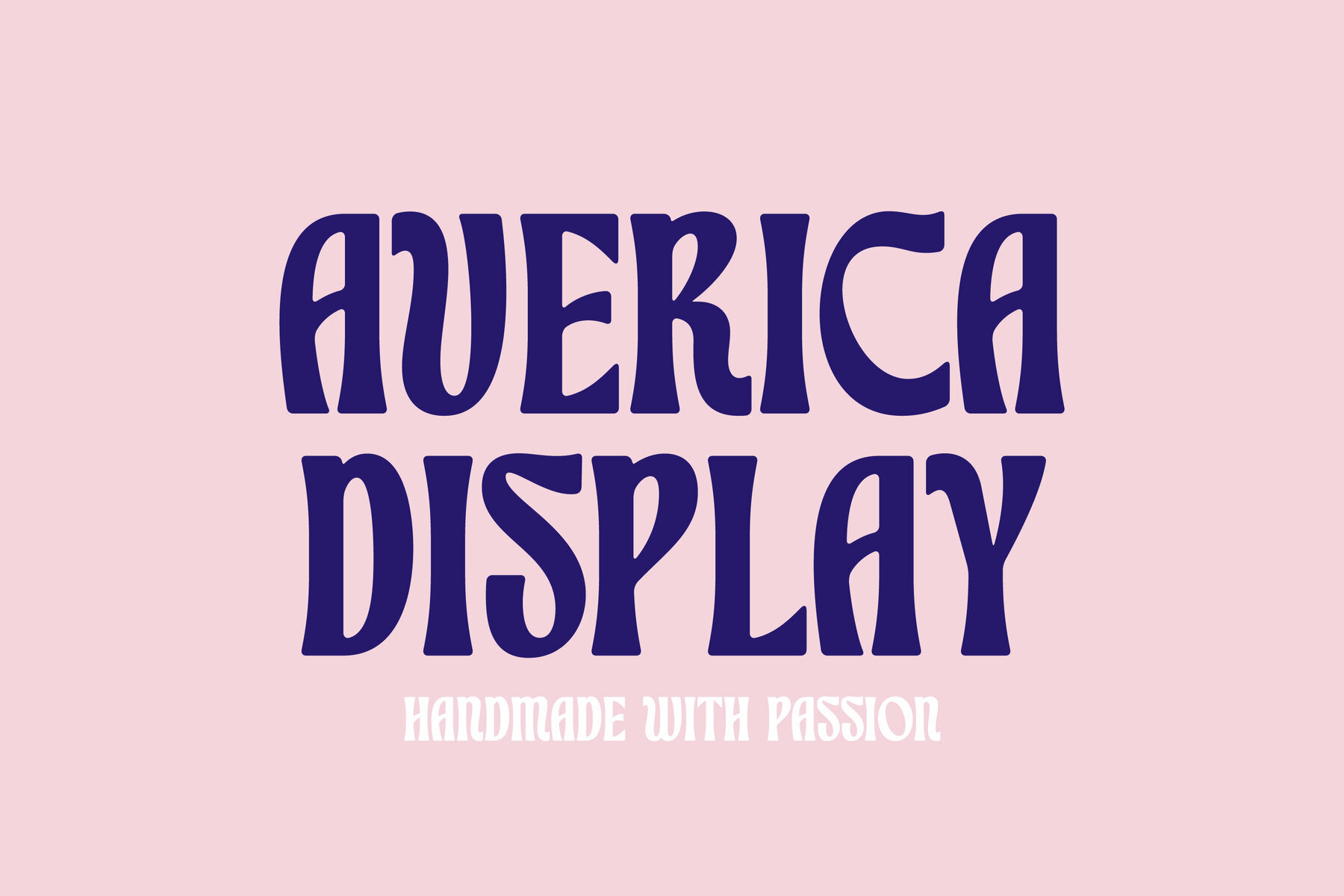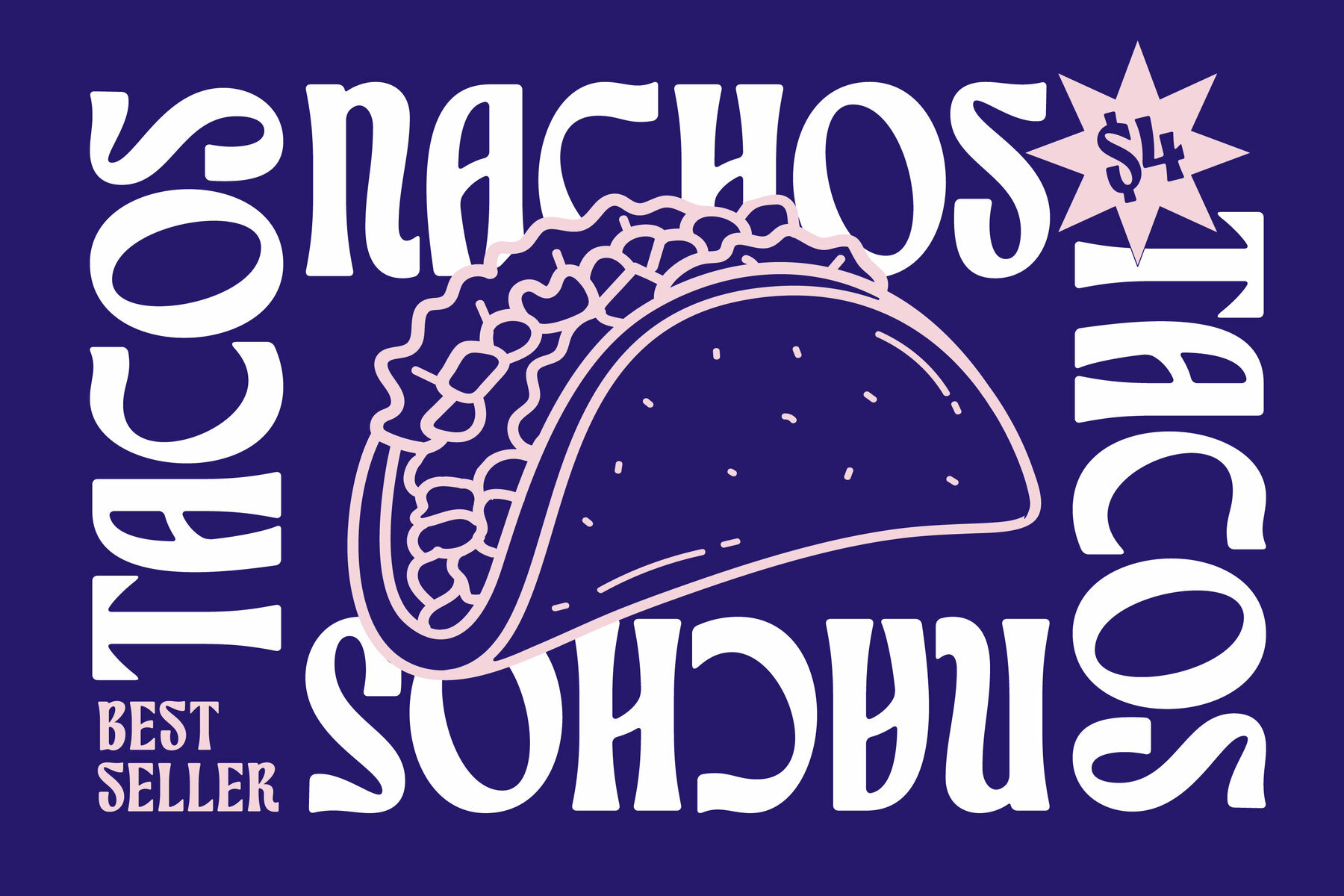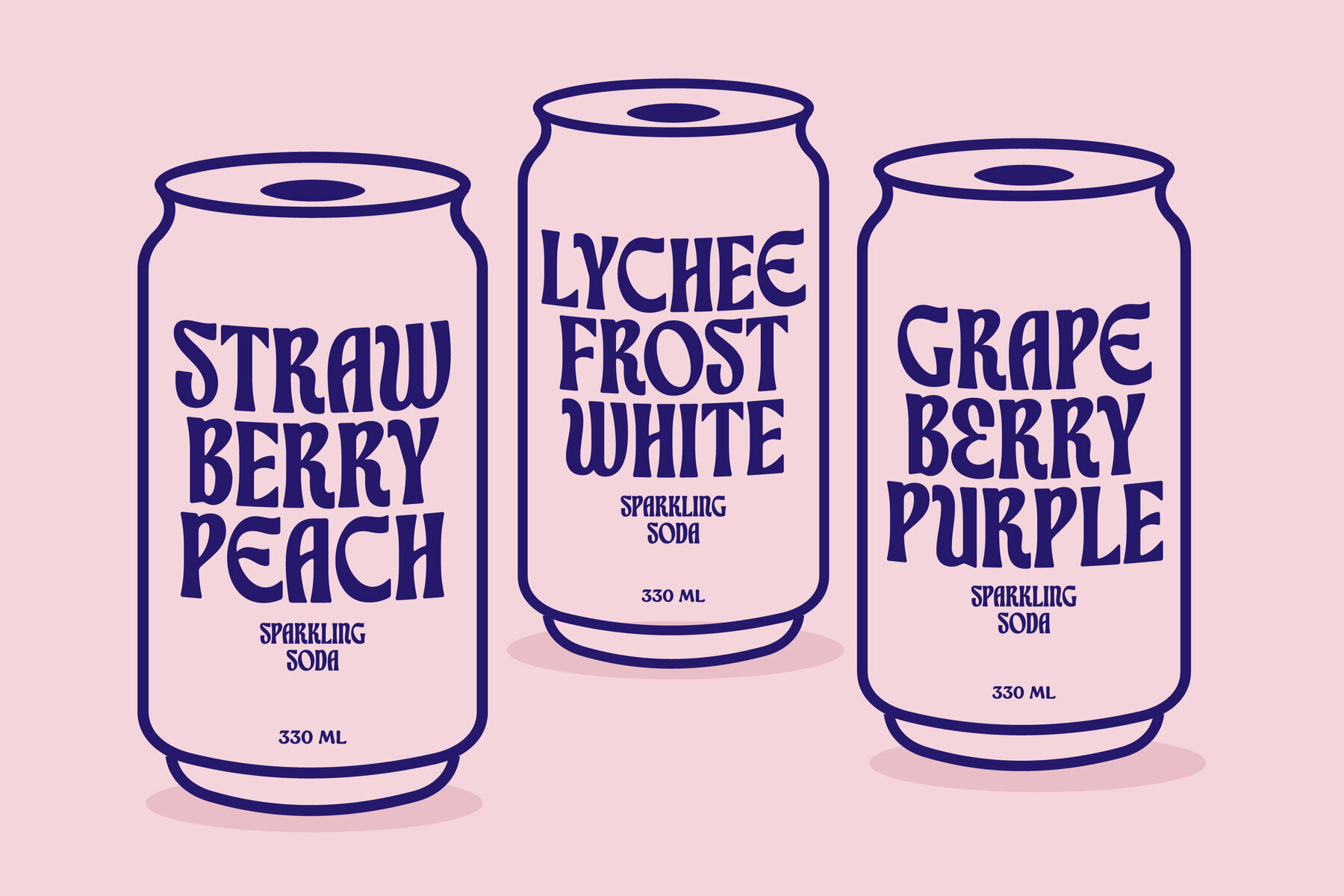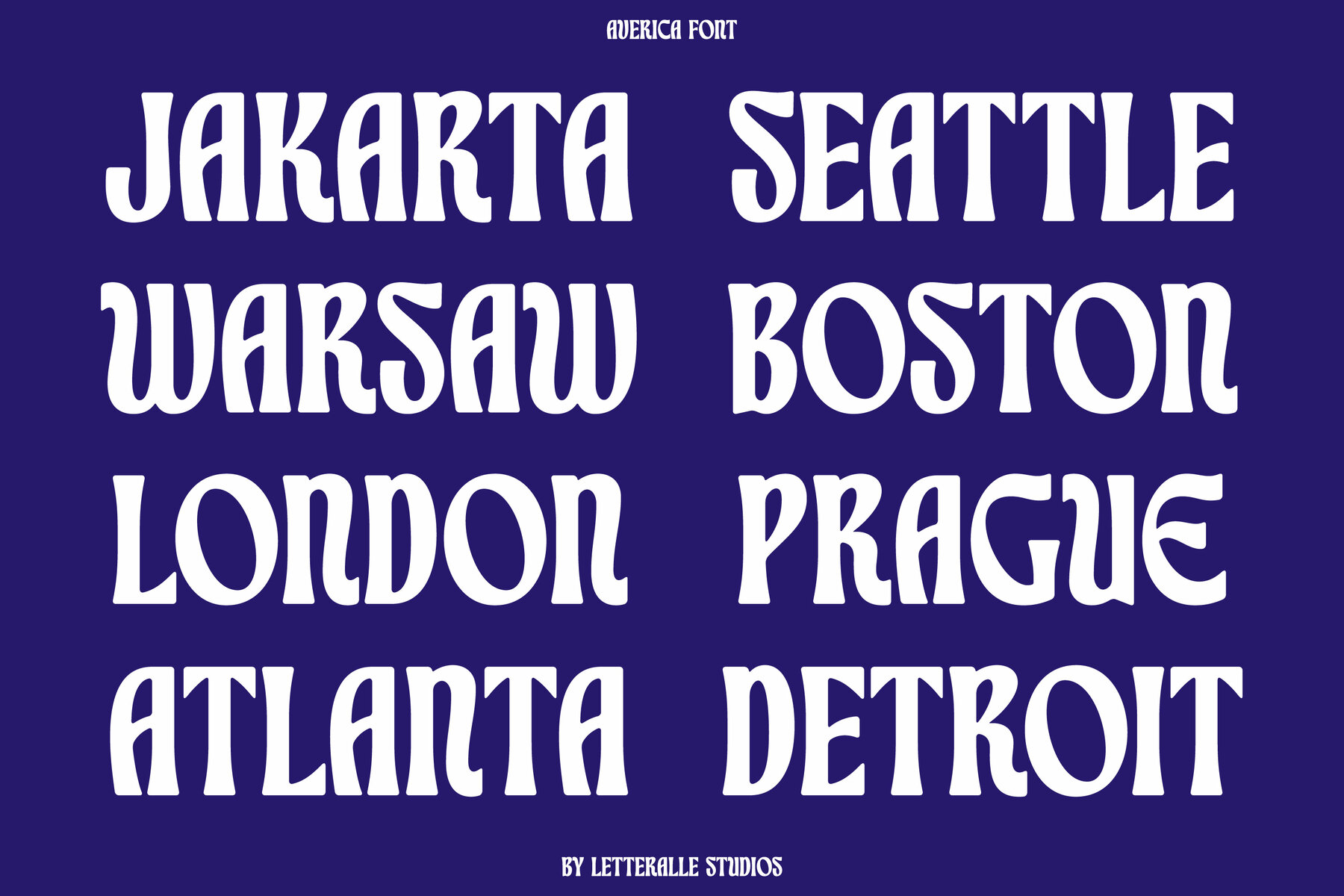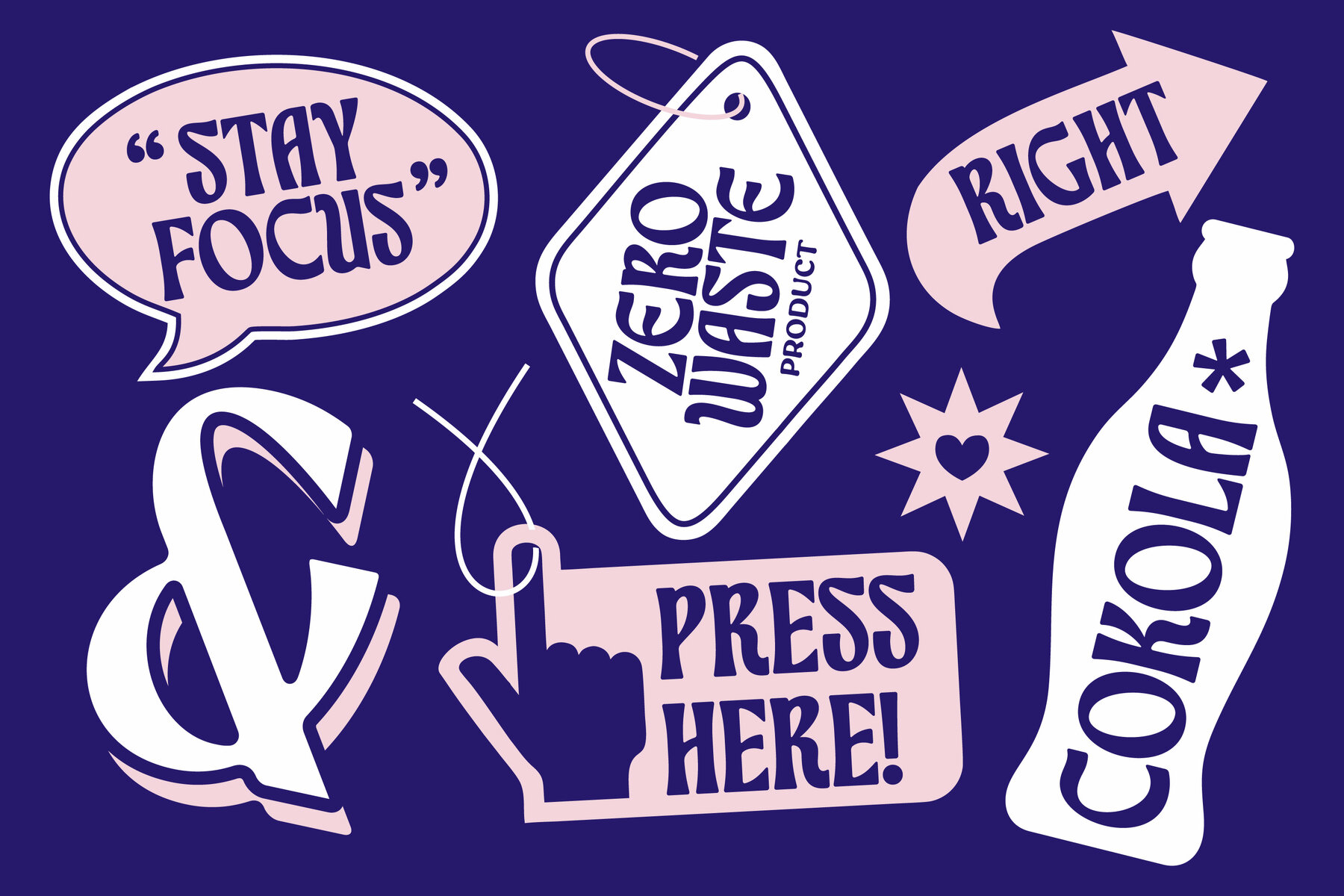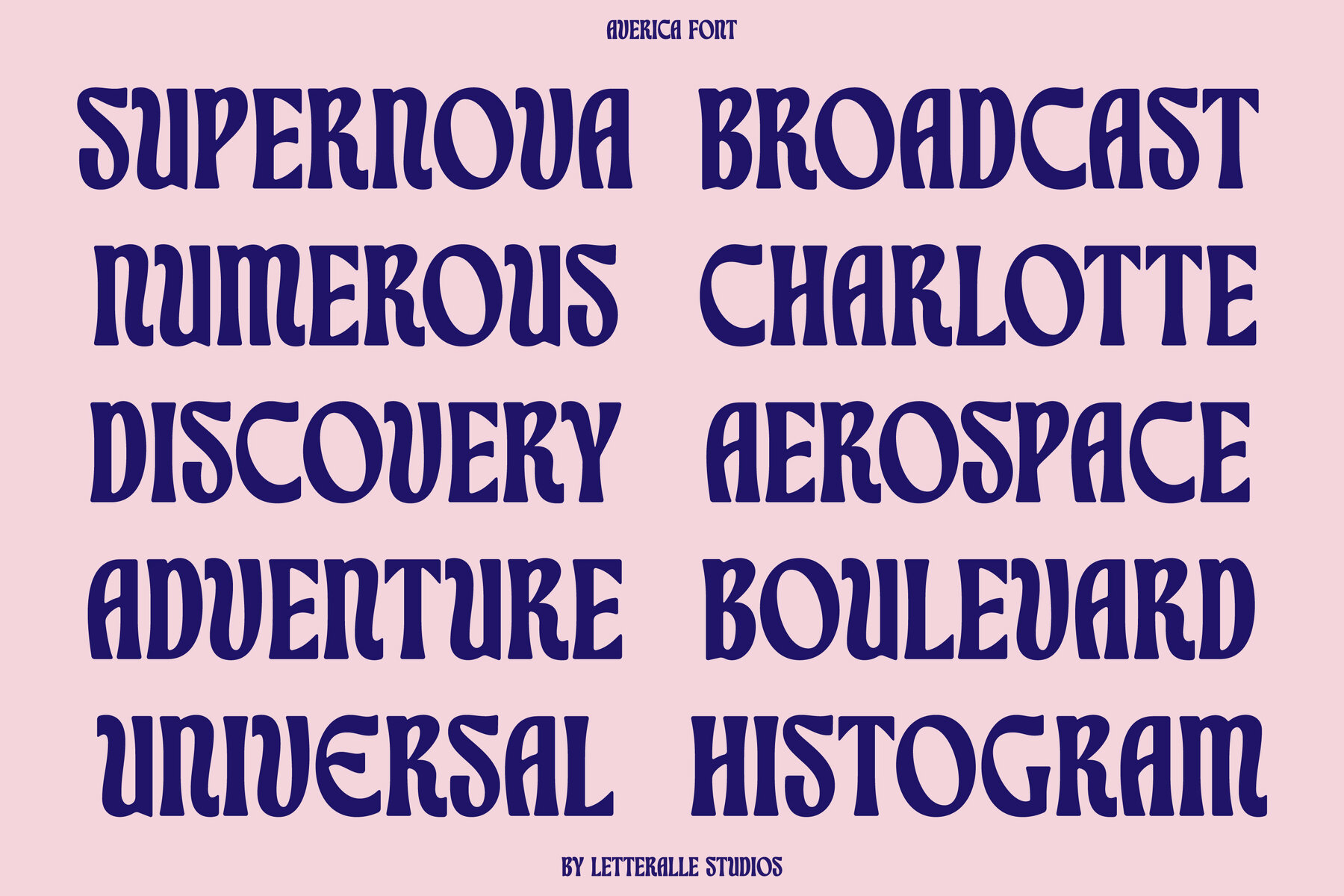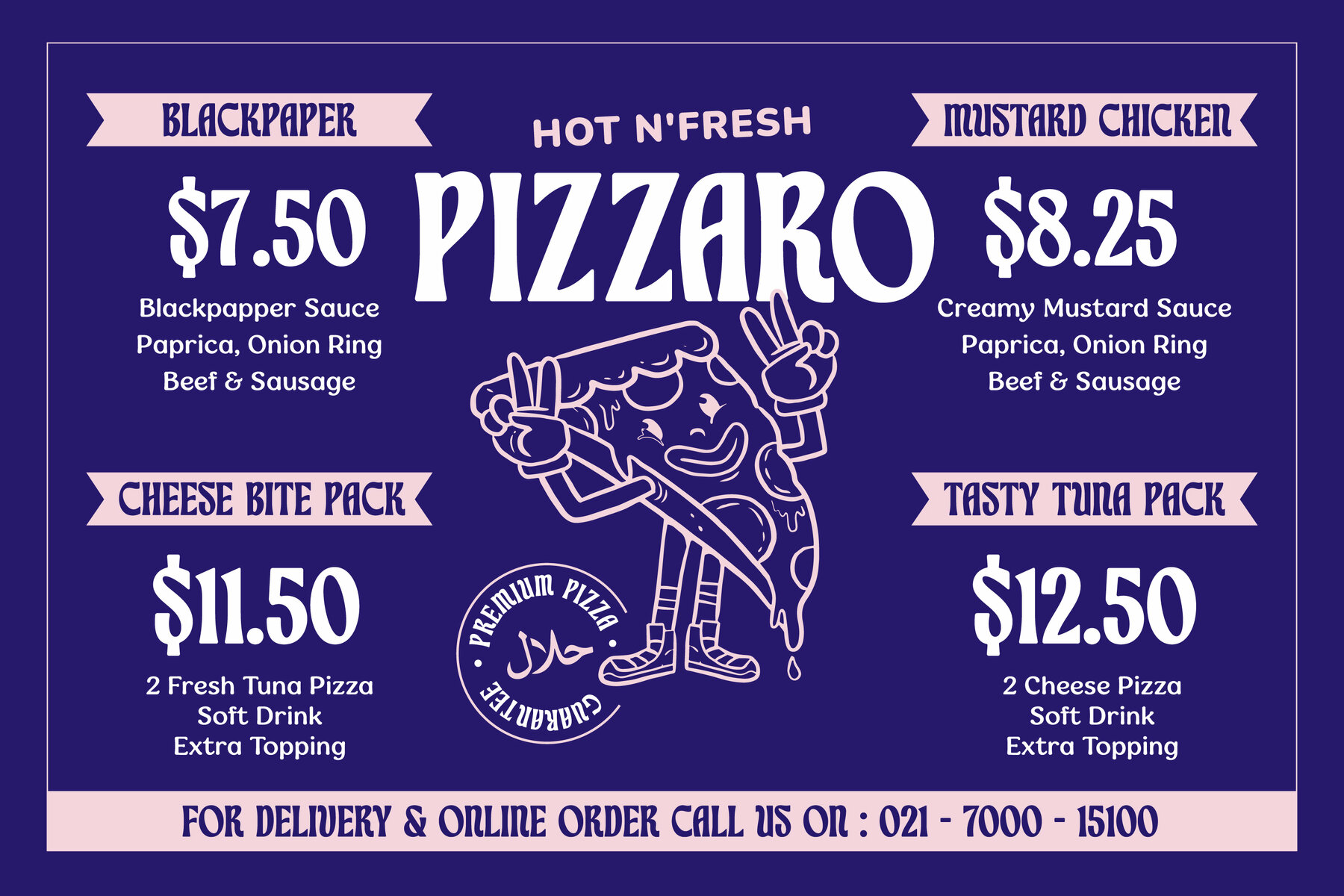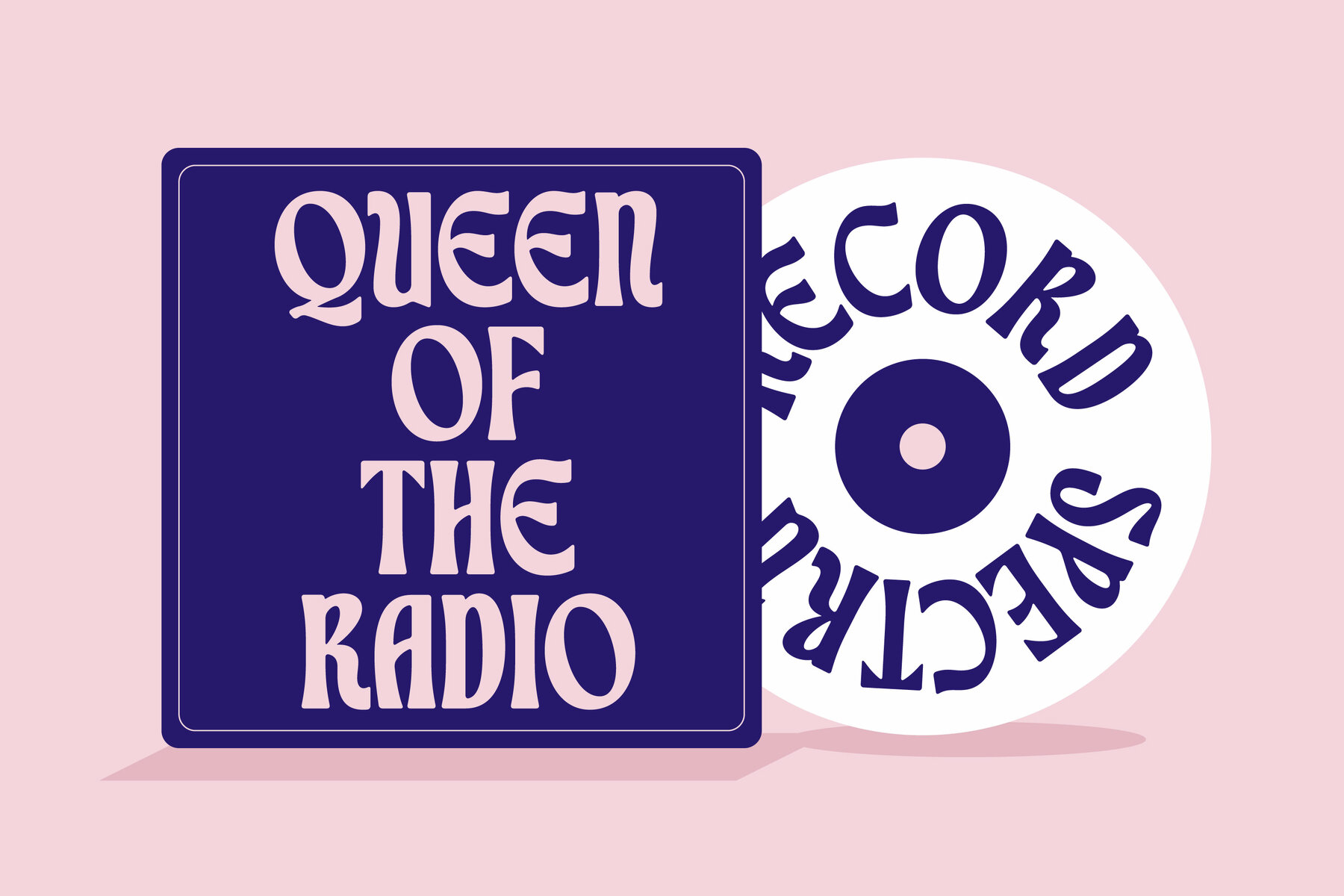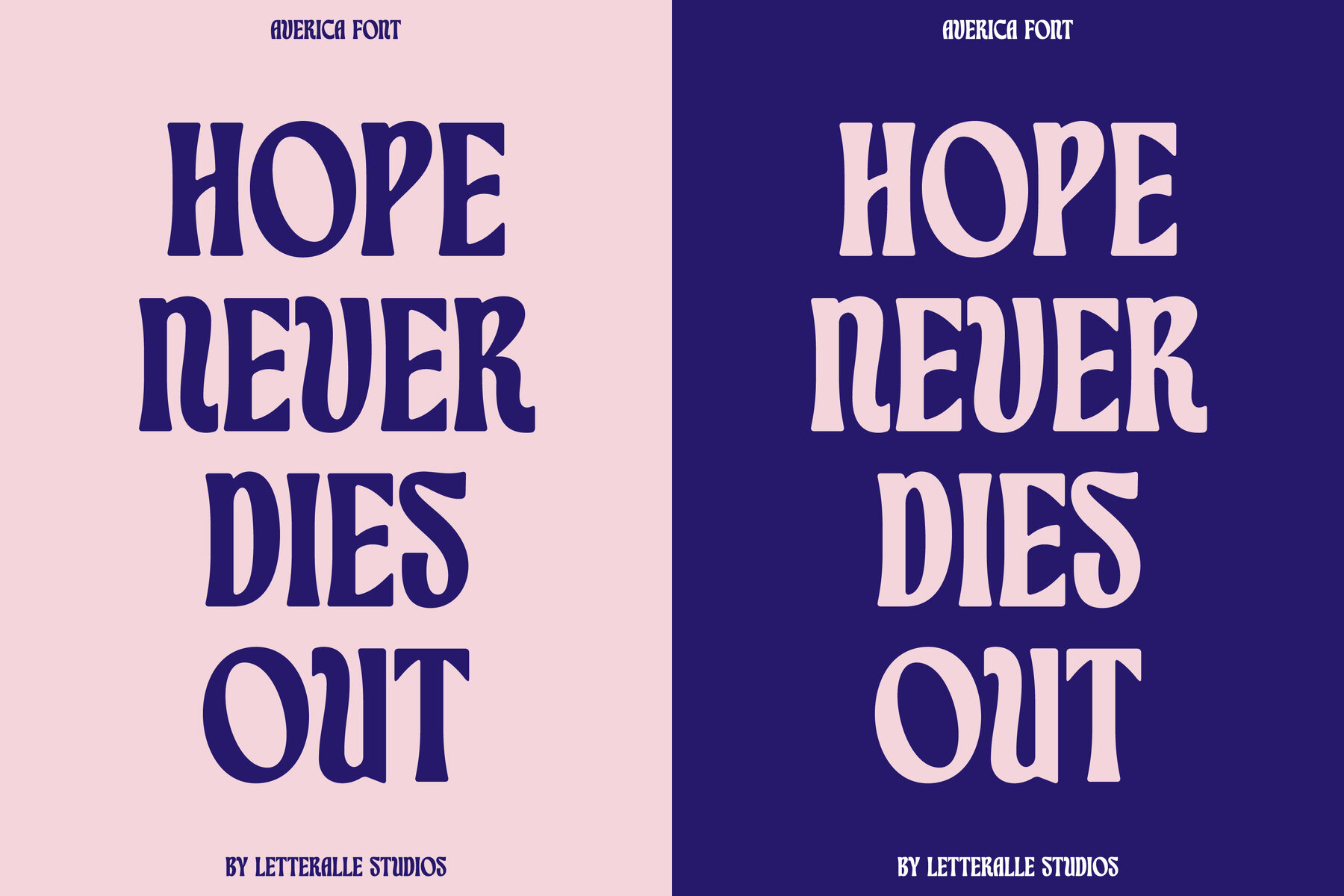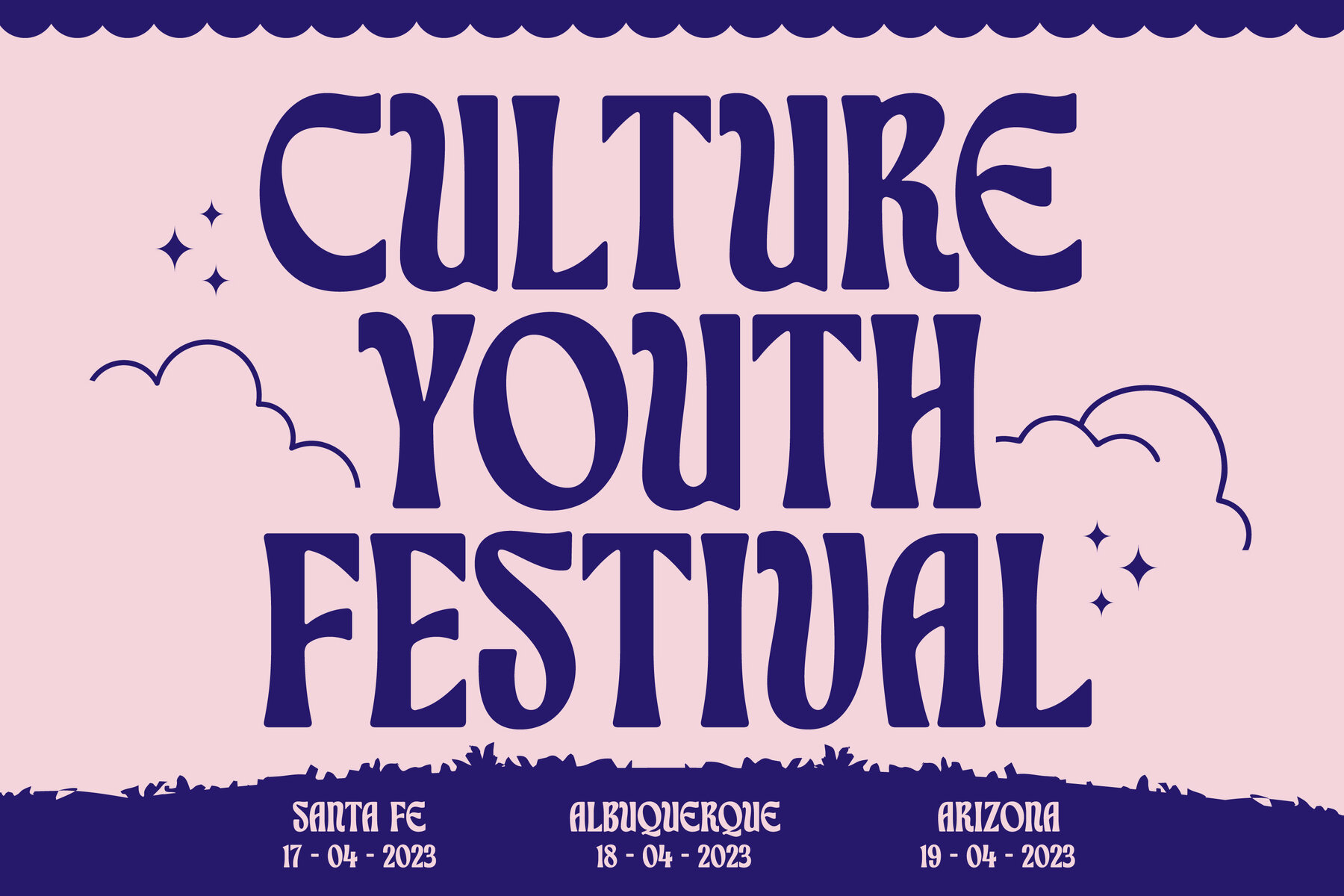
Averica Font
Averica Regular
Introducing my latest creation, Averica! a playful and friendly display font that is sure to add a touch of personality to any project. Averica is handmade with love and attention to detail, ensuring that each character is unique and full of charm. Whether you're looking to create eye-catching headlines, playful graphics, or fun social media posts, title, branding, merchandise, ads, poster, Averica is the perfect choice. With its bold and distinctive style, it will help your message stand out and capture the attention of your audience. Crafted with precision and care, Averica boasts smooth curves, clean lines, and just the right amount of quirkiness. It's playful and approachable, yet still maintains a professional feel, making it ideal for a variety of projects. So why settle for a bland and boring font, when you can add a touch of fun and personality to your work with carefully fashioned display font? Try it out today and see the difference it can make!